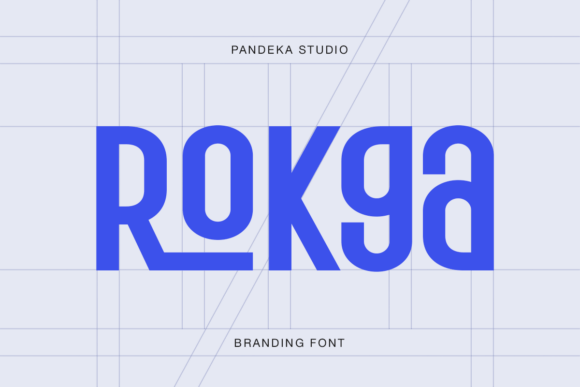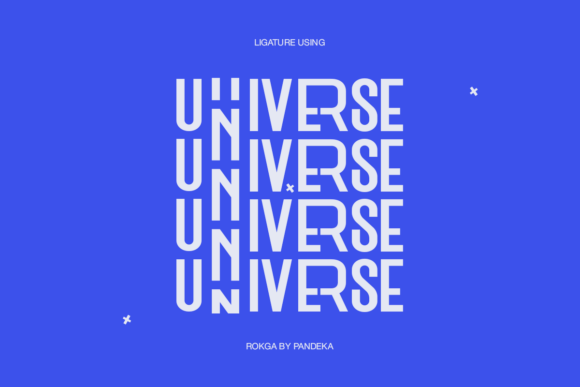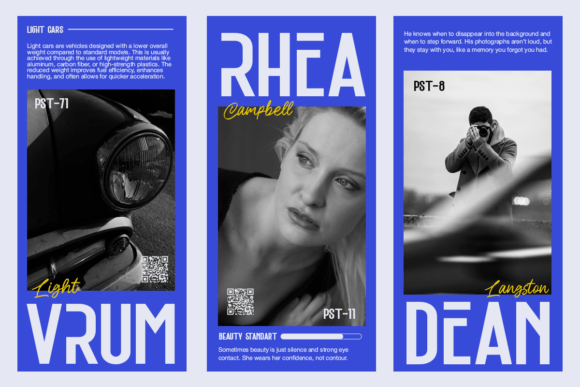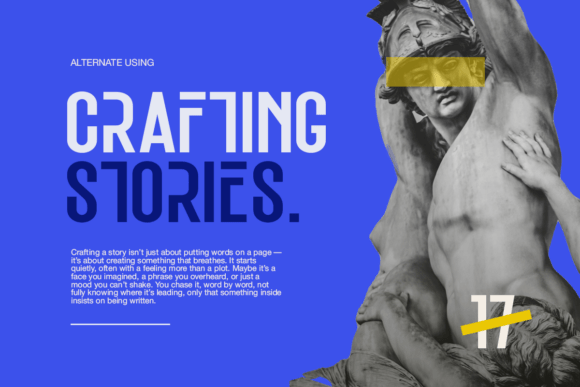
Rokga Font
About the Rokga Font
Let us introduce you to Rokga Font, where timeless design meets modern craftsmanship. Rokga is a futuristic display sans serif typeface with a bold and modern structure. Designed for branding, editorial layouts, posters, and digital interfaces, Rokga stands out with its tight kerning, unique ligatures, and geometric style. Its uppercase-driven design makes it ideal for headlines and attention-grabbing visuals. Rokga includes uppercase, lowercase, numbers, symbols, and multilingual support, making it versatile for global branding projects.
Rokga’s strong geometric forms and bold structure make it particularly effective for headlines, logos, and short impactful statements in branding materials. It excels in posters and advertising where maximum visual impact is crucial. However, its condensed nature and bold weight make it less suitable for body text or extended reading. Avoid using it for UI elements requiring high legibility at smaller sizes.
Its futuristic and assertive personality aligns perfectly with tech companies, modern fashion brands, and projects emphasizing innovation and forward-thinking design. Consider pairing Rokga with a clean sans-serif like Open Sans for body text or a subtle serif like Merriweather for supporting information to create visual balance.
For a more playful feel, a rounded sans-serif like Lato could be used as a secondary font; for a sophisticated contrast, a delicate script font such as Great Vibes could complement its bold lines in specific applications.
Rokga Font Usage Examples
Rokga Font Example